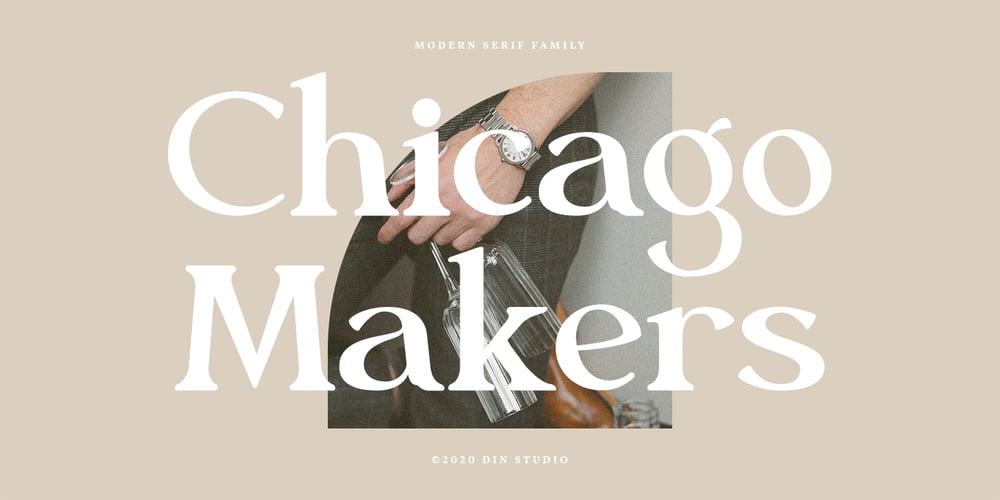
Chicago Makers
Chicago Makers font
Chicago Makers Font Family was designed by Donis Miftahudin and published by Din Studio. Chicago Makers contains 8 styles and family package options. Hi, Everyone! If you’re looking for a gorgeous font to attract your audiences or customers then we’ve got the font for you!Chicago Makers- A Serif FontThis handmade font typeface with modern style looks very interesting for loads of different projects and promotions. It is perfect to be used on your website, for your social media branding, Pinterest banners, printed products, and more!Features: Multilingual Support PUA Encoded Numerals and Punctuation Thank you for downloading premium fonts from Din Studio